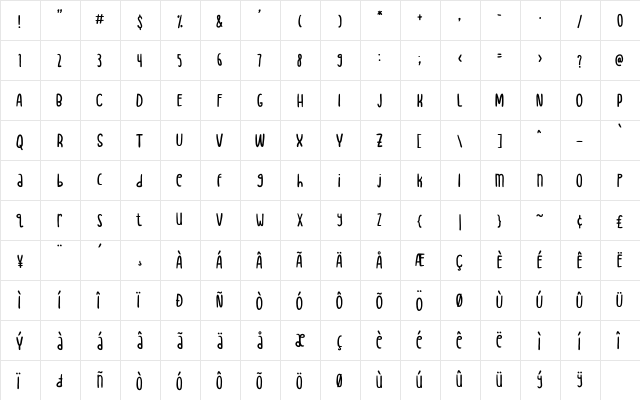
Happy Feet Regular
Design Context for Happy Feet Typeface
Happy Feet is a composed and adaptable typeface that performs quietly and consistently across a wide range of design contexts.
Pro Tip: Use Happy Feet in both headline and body roles to test its range before committing to a single application.